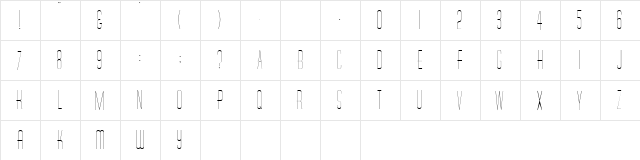
Diner Regular Font Preview
Diner Regular
Diner Regular Font Details
Design Context for Diner Typeface
Diner takes a measured approach to typography — its balanced proportions and neutral character make it a reliable workhorse for both digital and print work.
Pro Tip: Pair Diner with a font of contrasting weight or personality to build a more expressive typographic hierarchy.